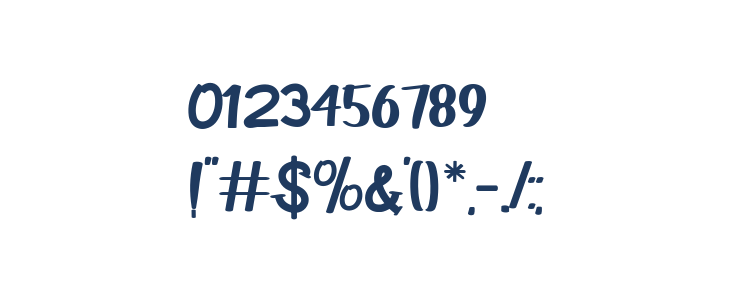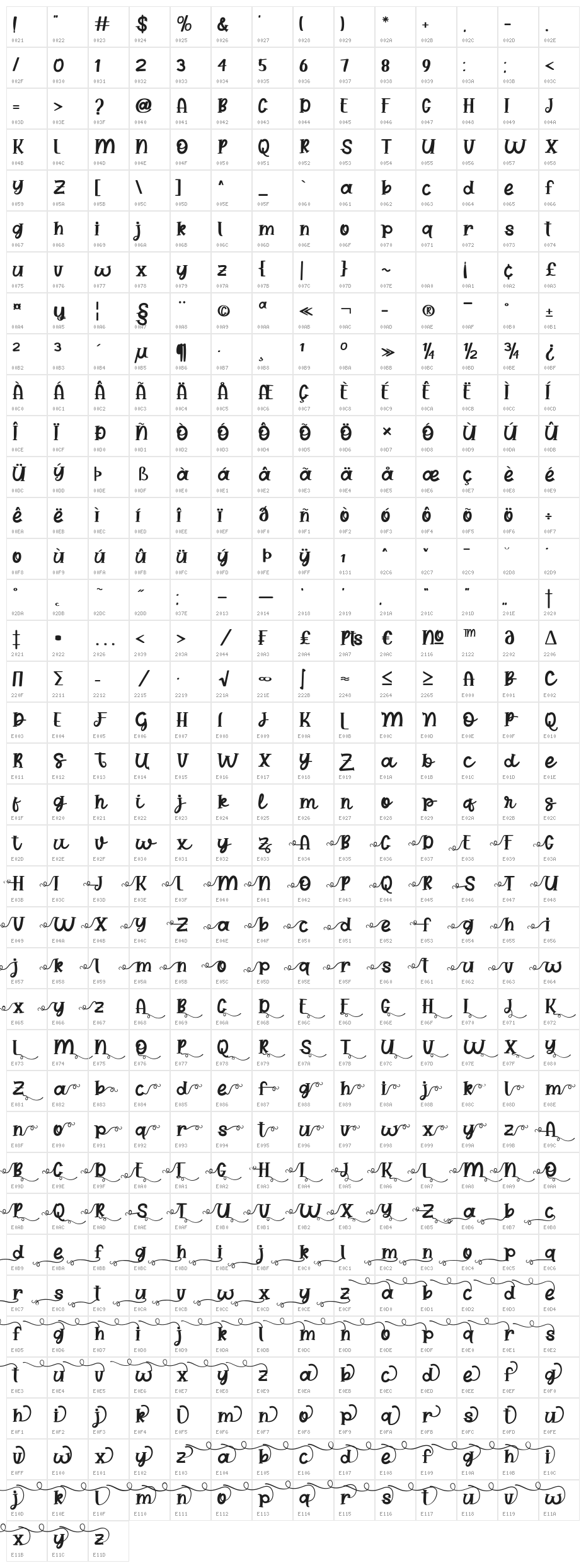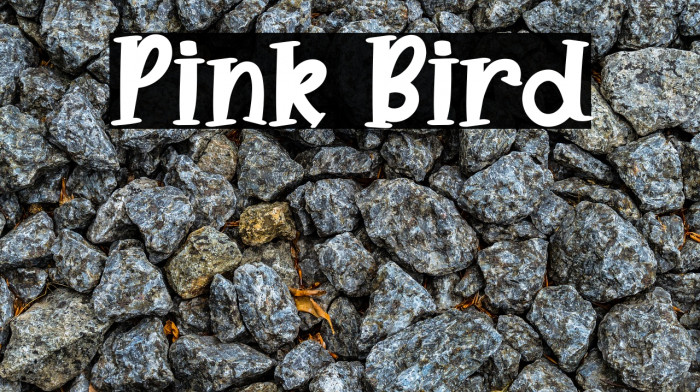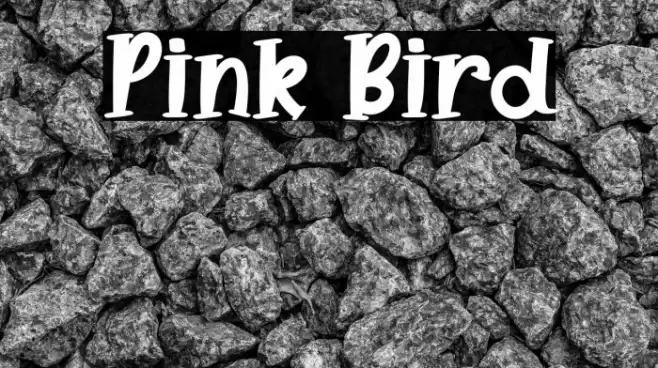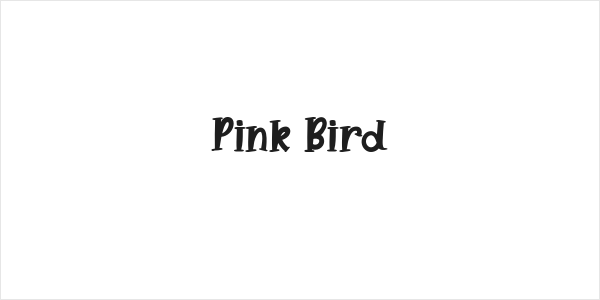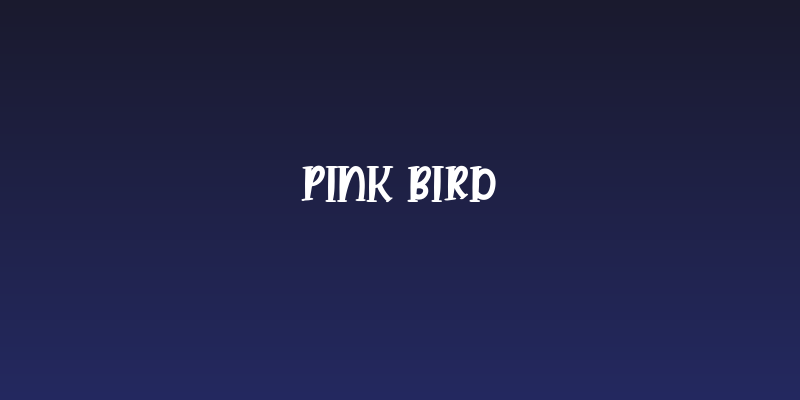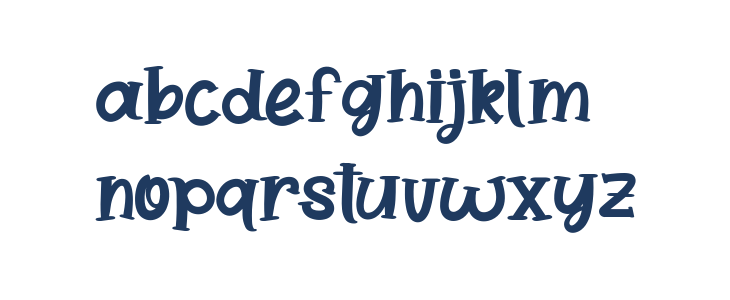
Pink Bird Font
Pink Bird Description
This font features a playful and whimsical style, characterized by its bold and rounded letterforms. The strokes are thick and consistent, giving it a strong presence on the page. The letters have a slight slant, adding a dynamic and lively feel. The uppercase letters are particularly distinctive, with unique curves and flourishes that enhance its decorative appeal. The lowercase letters maintain a similar style, ensuring readability while still being visually interesting. The numerals and special characters are designed to match the overall aesthetic, making it suitable for a variety of creative applications.